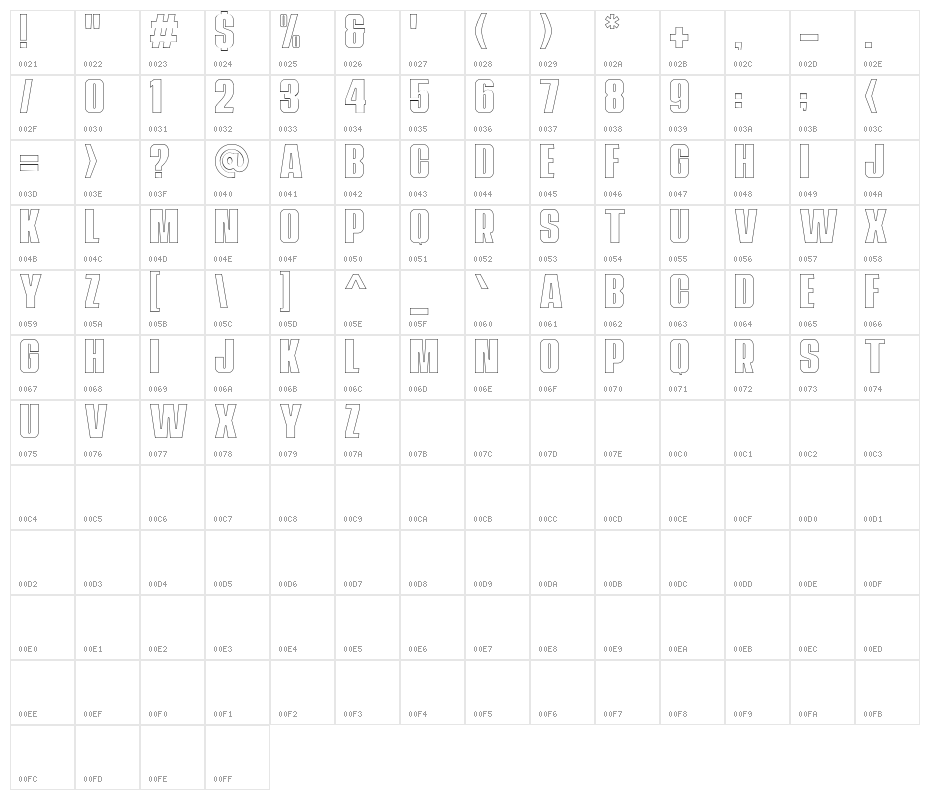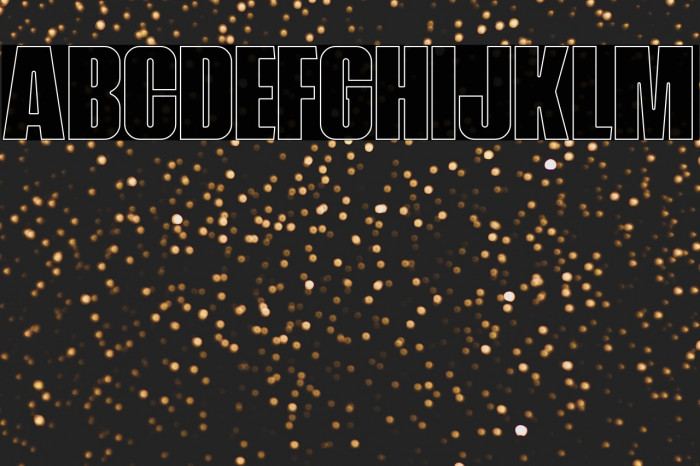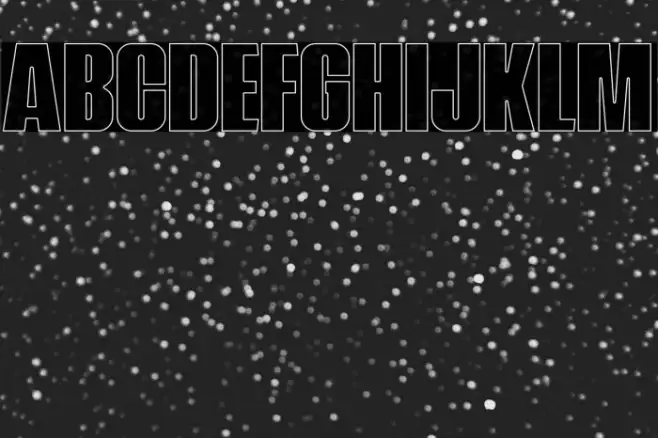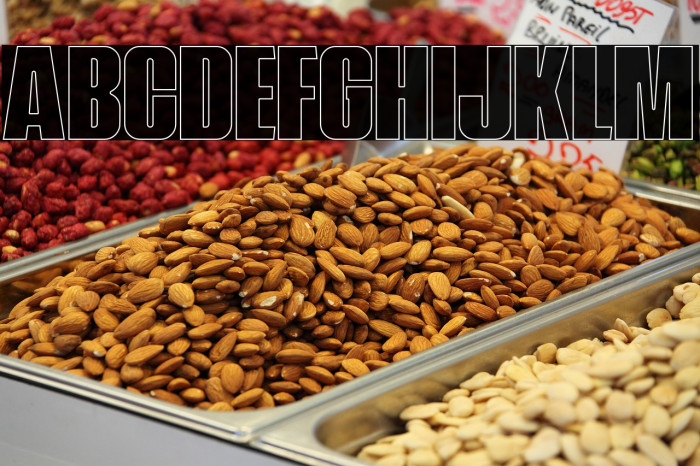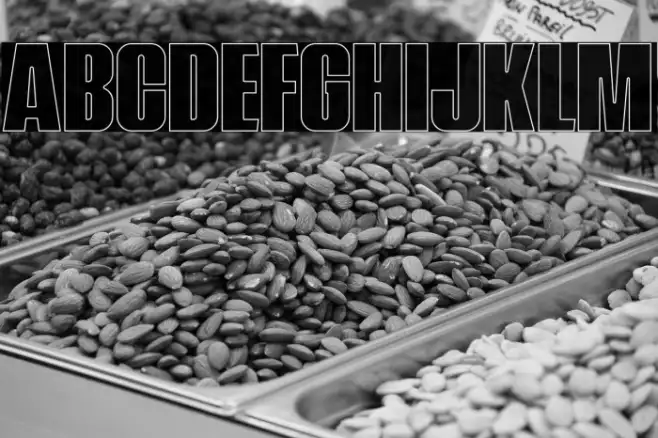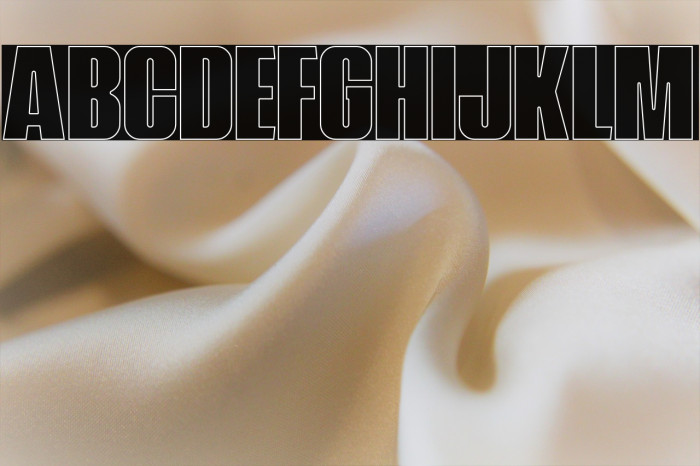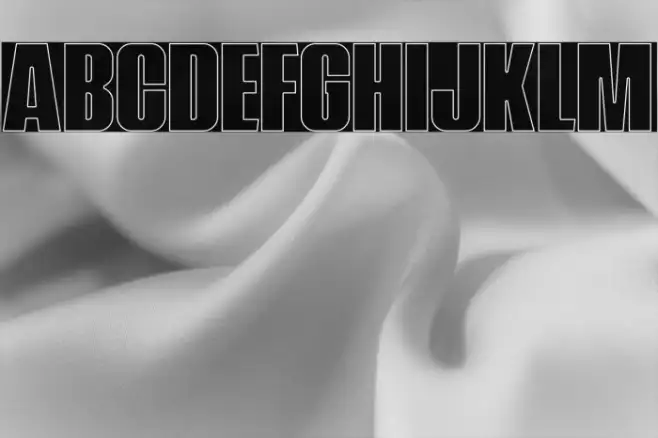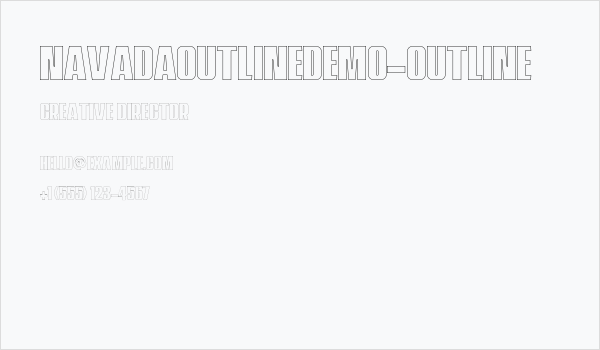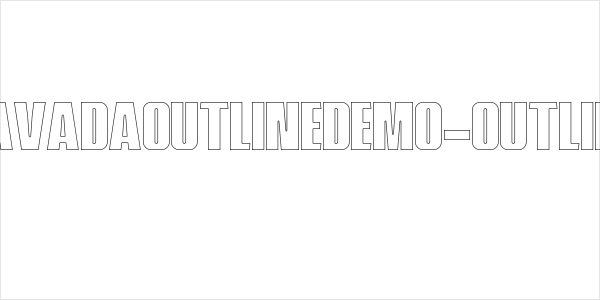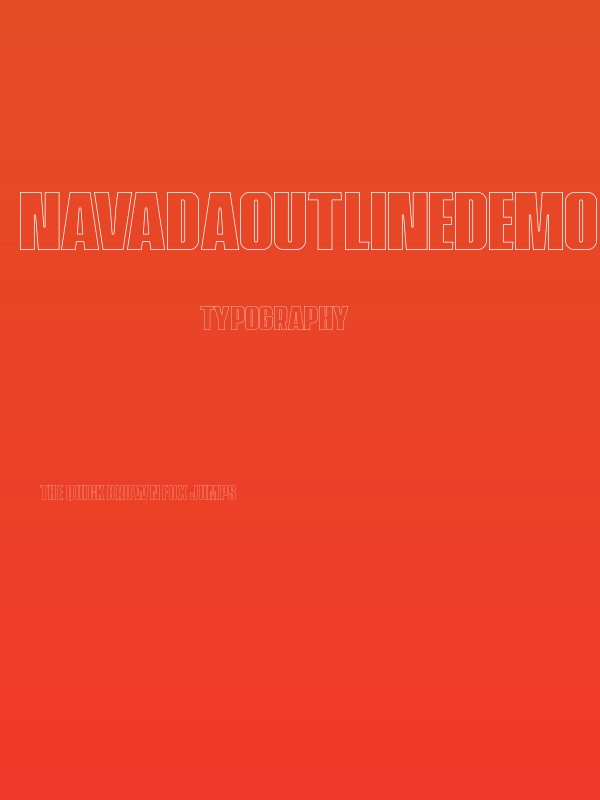
NavadaOutlineDemo-Outline Font
NavadaOutlineDemo-Outline Description
This font features a bold, outlined style that emphasizes each character with a strong, clear contour. The uppercase and lowercase letters maintain a consistent width, creating a uniform appearance across the alphabet. The numbers and special characters follow the same outlined design, ensuring cohesion throughout the font. The overall look is modern and impactful, making it suitable for attention-grabbing headlines and titles. The spacing between characters is normal, allowing for readability while maintaining the bold presence of each letter. The font's outline design adds a unique touch, making it stand out in various design applications.
| Proposed Projects | Ideal for headlines, posters, logos, and any design requiring a strong visual impact. |